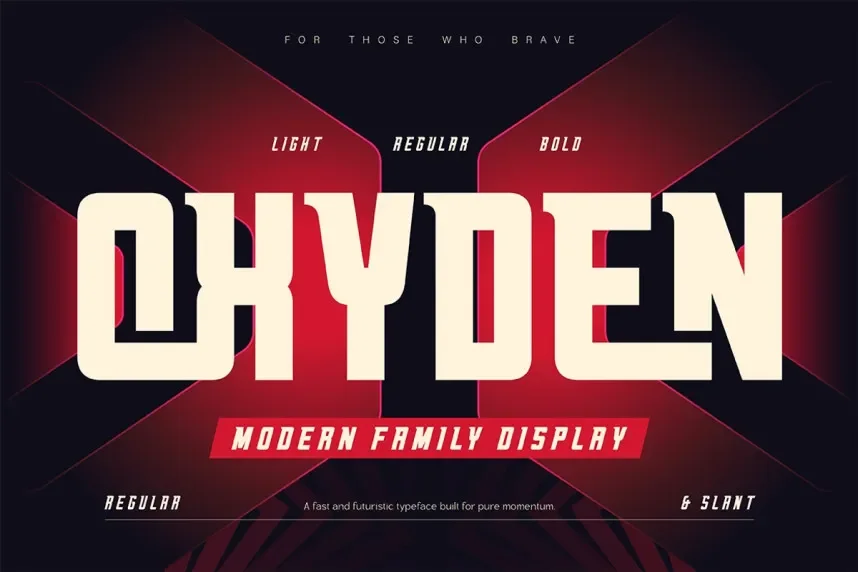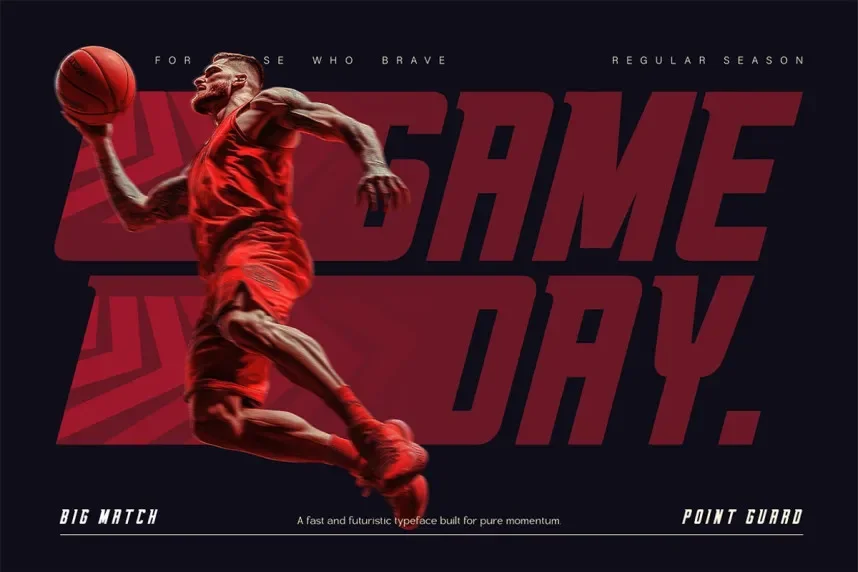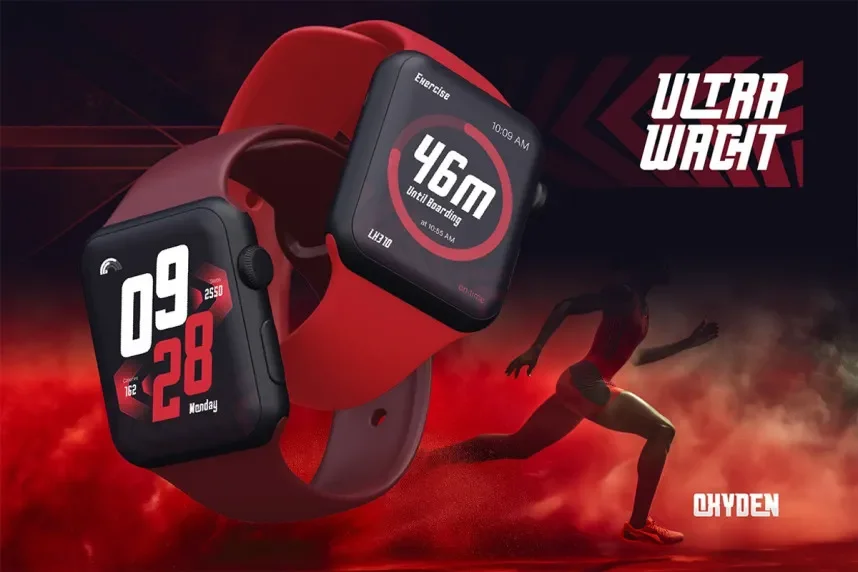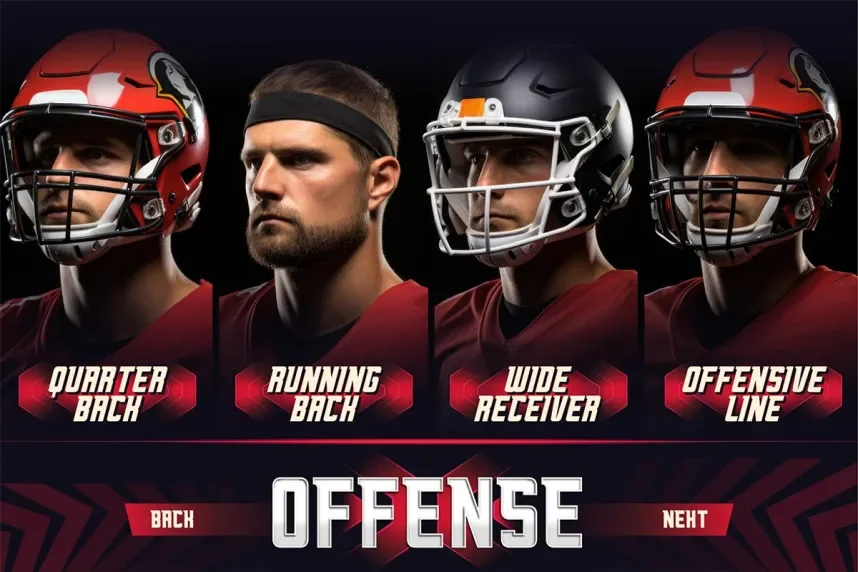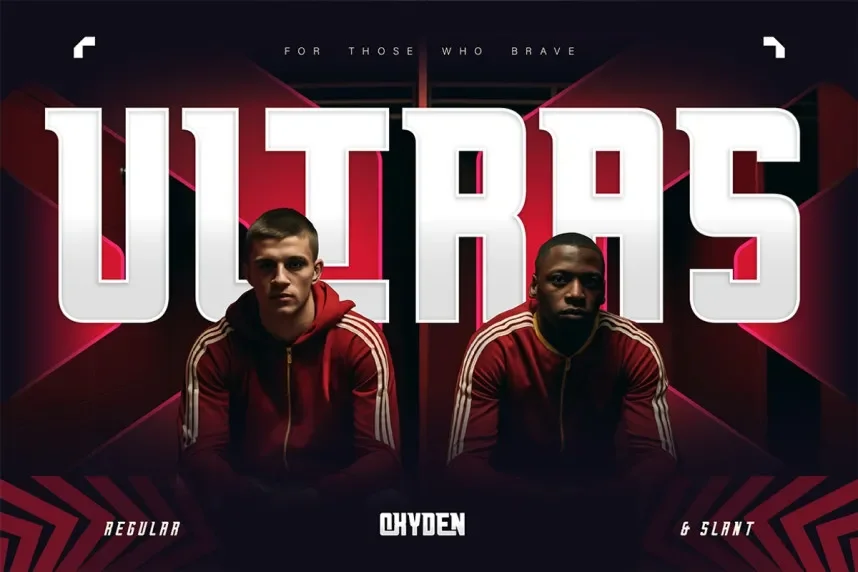
Oxyden Font is a modern display typeface designed for bold and structured visual communication. Designers often need fonts that stand out while remaining clear across digital platforms. Oxyden achieves this through geometric shapes and consistent spacing.
This font belongs to the display sans-serif category. Its letterforms feature sharp angles, balanced proportions, and uniform stroke width. These traits improve clarity and visual impact in headings and branding elements.
Oxyden is suitable for branding, technology visuals, posters, web headers, and advertising materials. It pairs effectively with neutral sans-serif fonts for body content to maintain balance.